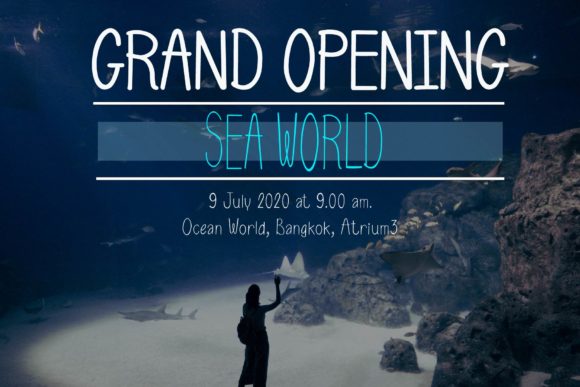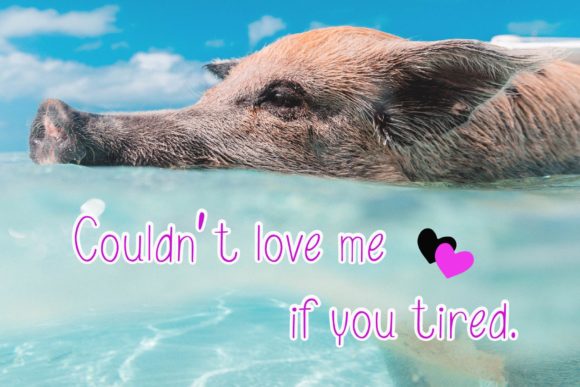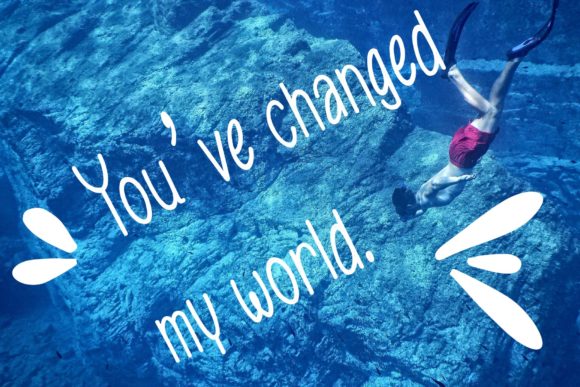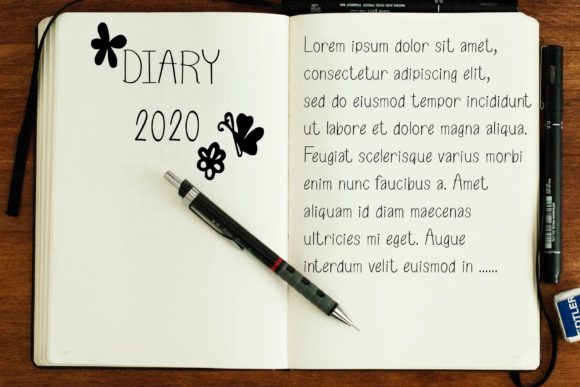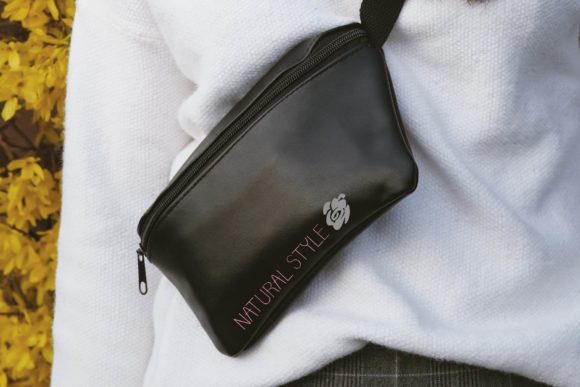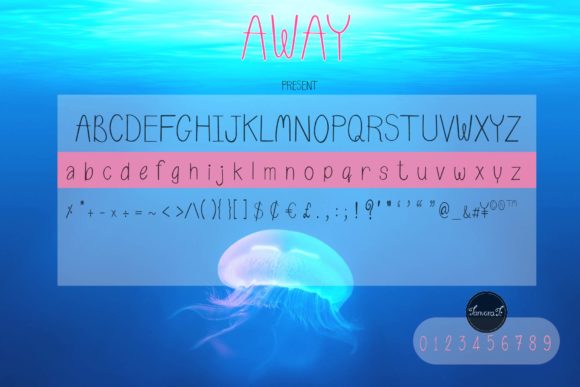
Away Font: The Sweet and Simple Handwritten Font for Your Creative Projects
Are you a designer, crafter, or DIY enthusiast looking for a unique and versatile font to elevate your creative projects? Look no further than Away Font, a sweet and simple handwritten font that’s perfect for a wide range of designs. With its natural and distinctive style, Away Font is sure to capture the attention of your audience and leave a lasting impression.
What Makes Away Font So Special?
Away Font is a beautifully crafted handwritten font that’s designed to be both elegant and approachable. Its unique style is characterized by its natural, flowing lines and subtle imperfections, which give it a charming and authentic feel. Whether you’re creating a logo, branding materials, or social media graphics, Away Font is the perfect choice for adding a personal touch to your designs.
One of the standout features of Away Font is its incredible versatility. Its simple yet distinctive design makes it suitable for a wide range of projects, from rustic and vintage-inspired designs to modern and minimalist ones. Whether you’re creating a wedding invitation, a product label, or a blog post, Away Font is sure to complement your design and add a touch of personality.
The Benefits of Using Away Font
So why choose Away Font for your creative projects? Here are just a few benefits of using this amazing font:
- Unique and distinctive style: Away Font has a one-of-a-kind design that’s sure to set your projects apart from the crowd.
- Natural and authentic feel: The font’s subtle imperfections and flowing lines give it a charming and authentic feel that’s perfect for creating a personal connection with your audience.
- Incredibly versatile: Away Font is suitable for a wide range of projects, from rustic and vintage-inspired designs to modern and minimalist ones.
- Easy to read: Despite its unique style, Away Font is incredibly easy to read, making it perfect for body text and headlines.
How to Use Away Font in Your Designs
Using Away Font in your designs is incredibly easy. Here are a few tips to get you started:
- Pair it with bold colors: Away Font looks amazing when paired with bold and bright colors. Try using it with a bold background or paired with a contrasting color to make it stand out.
- Experiment with font sizes: Away Font looks great in a variety of font sizes, from large headlines to smaller body text. Experiment with different sizes to find the perfect fit for your design.
- Add some texture: Away Font looks amazing when paired with texture and patterns. Try adding a subtle texture or pattern to your design to give it an extra layer of depth.
Who Can Benefit from Away Font?
Away Font is perfect for a wide range of designers, crafters, and DIY enthusiasts, including:
- Graphic designers: Away Font is perfect for creating logos, branding materials, and social media graphics.
- Crafters and makers: Away Font is great for creating labels, packaging, and other materials for your handmade products.
- Bloggers and writers: Away Font is perfect for creating blog posts, articles, and other written content.
- Small business owners: Away Font is great for creating marketing materials, such as flyers, brochures, and business cards.
Away Font is a sweet and simple handwritten font that’s perfect for adding a personal touch to your creative projects. With its unique and distinctive style, natural and authentic feel, and incredible versatility, Away Font is sure to become a favorite in your design toolkit. So why wait? Download Away Font today and start creating amazing designs that capture the attention of your audience!